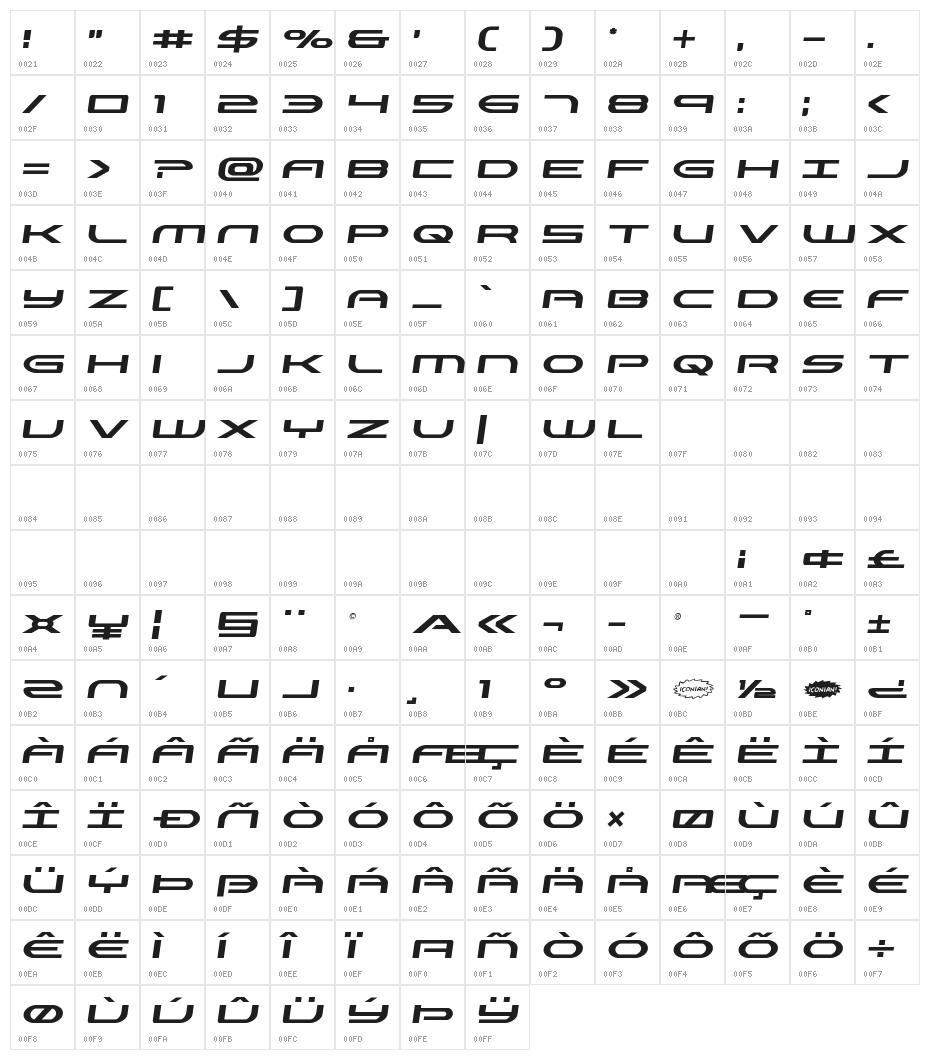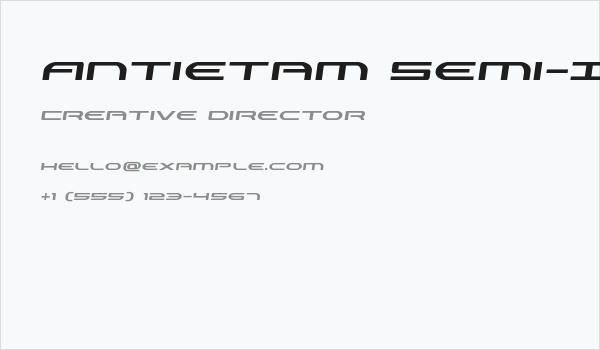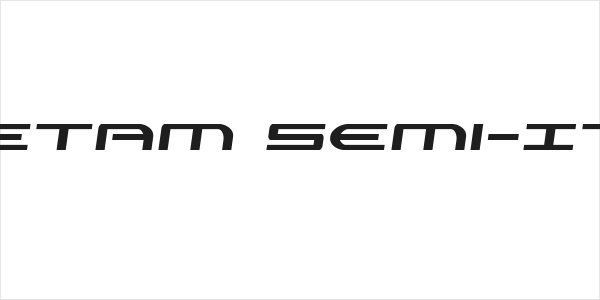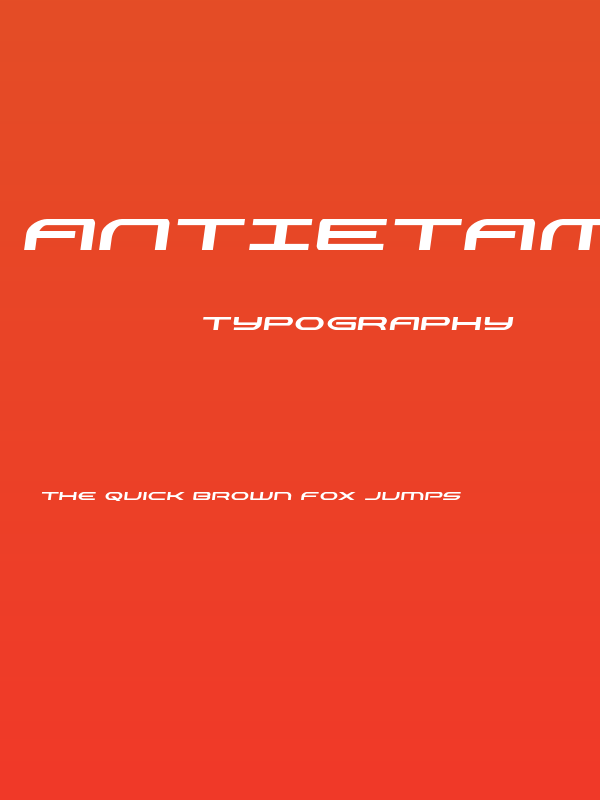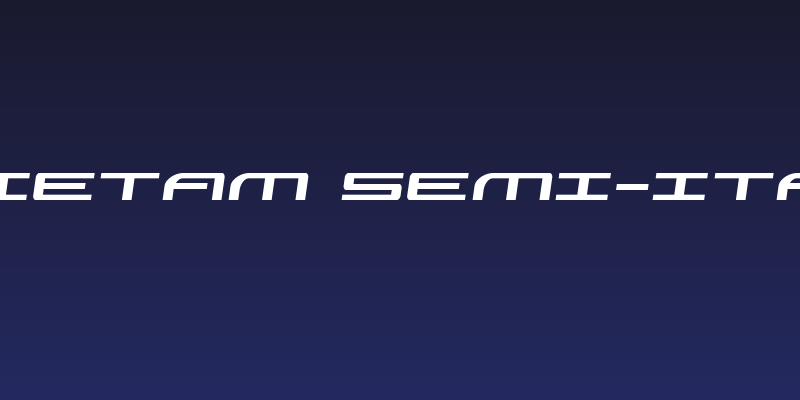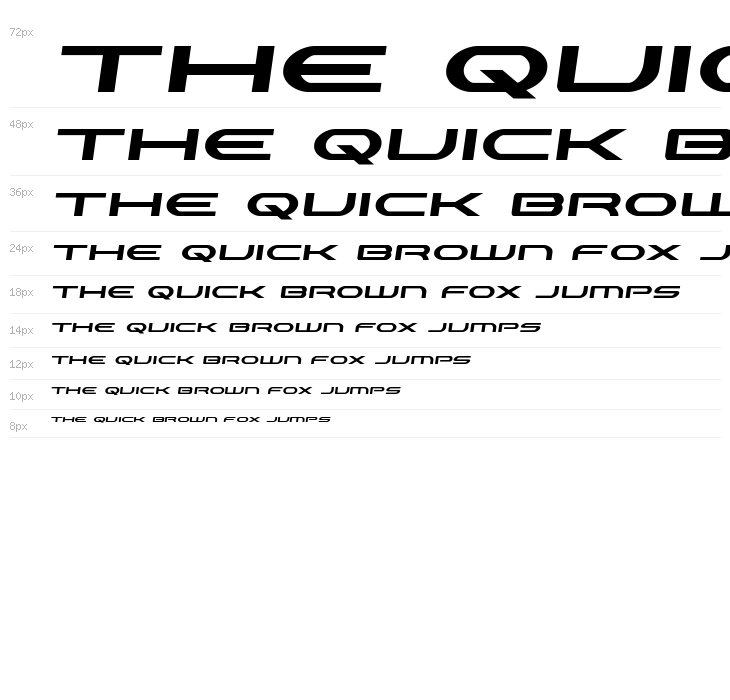
Antietam Semi-Italic Font
Antietam Semi-Italic Description
This font features a sleek, modern design with a semi-italic style that gives it a dynamic and forward-moving appearance. The characters are slightly slanted, adding a sense of motion and elegance. The strokes are consistent in width, providing a uniform look across all characters. The font maintains a clean and futuristic aesthetic, making it suitable for contemporary design projects. The spacing between characters is balanced, ensuring readability while maintaining its stylish appeal.
| Proposed Projects | Ideal for technology branding, modern advertising, and innovative product packaging. |